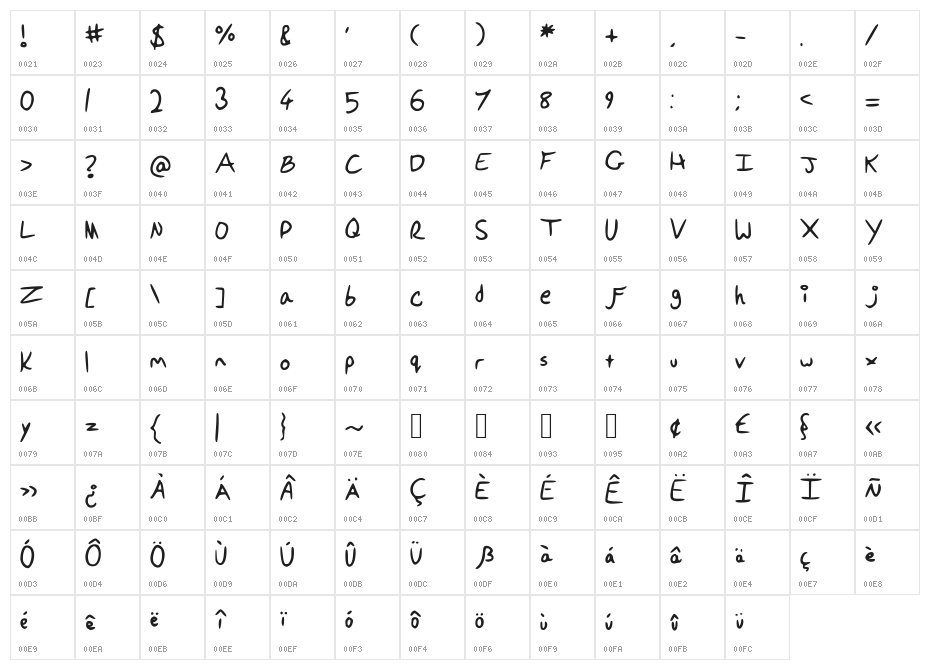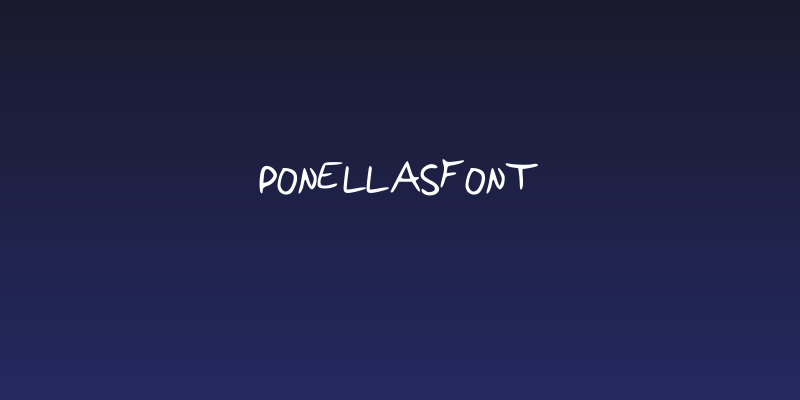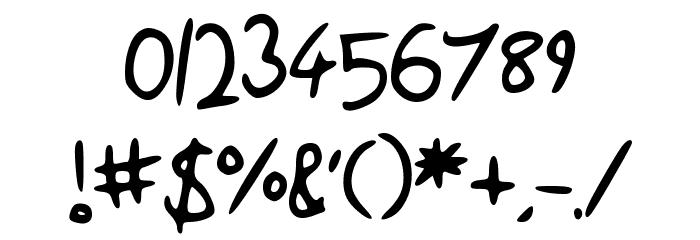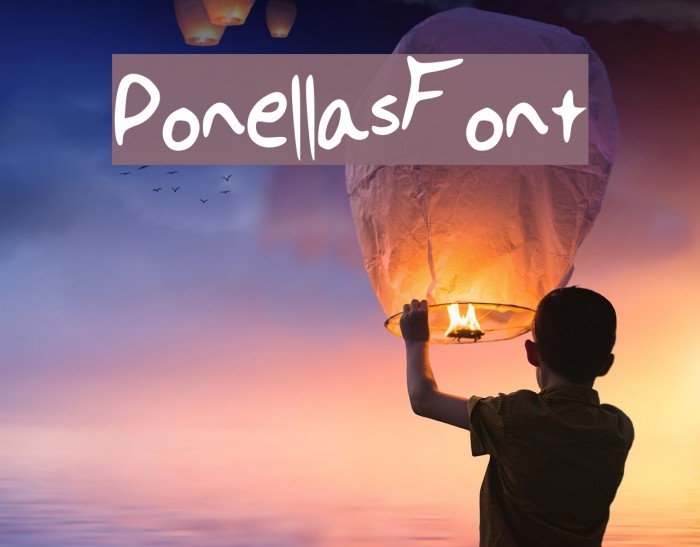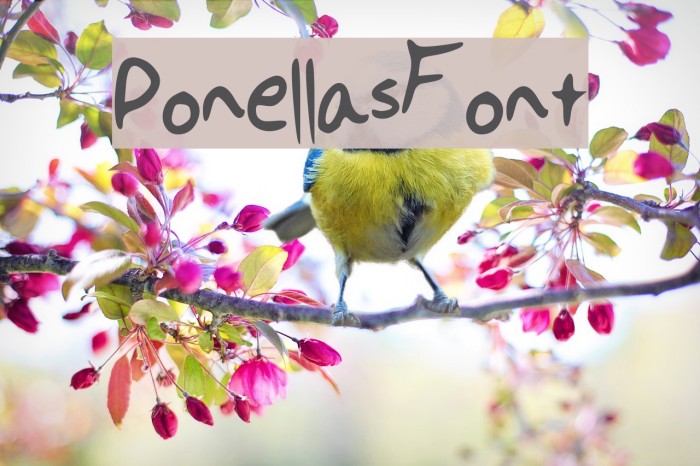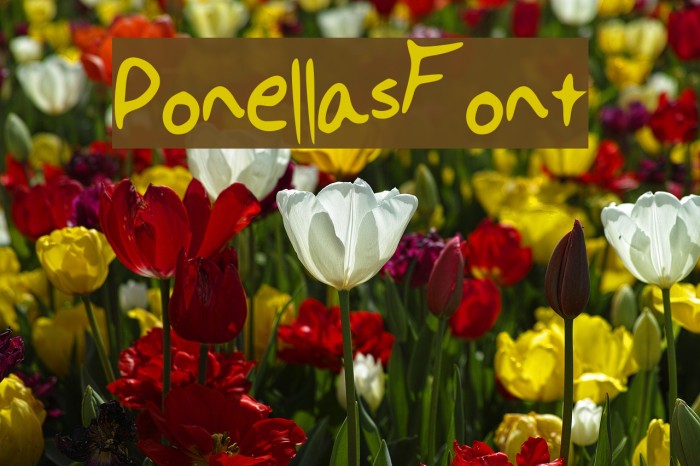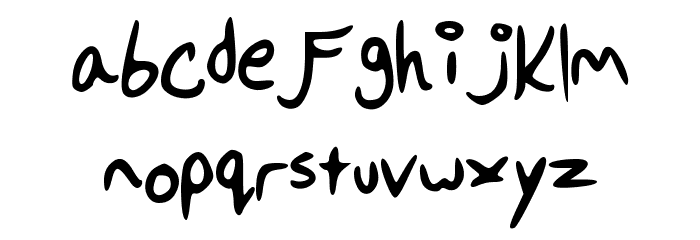
PonellasFont Font
PonellasFont Description
This font features a playful, handwritten style with a casual and informal appearance. The characters are slightly irregular, giving them a dynamic and lively feel. The strokes are bold and rounded, with a consistent thickness that maintains readability while adding a touch of whimsy. The uppercase and lowercase letters are distinct, with some characters exhibiting unique flourishes, such as the looped 'g' and the curved 'y'. The numbers and special characters follow the same playful aesthetic, making this font suitable for creative and informal projects.
| Use Case | Headlines, Logos, Informal text |
| Proposed Projects | Ideal for children's books, greeting cards, playful branding, and casual social media graphics. |